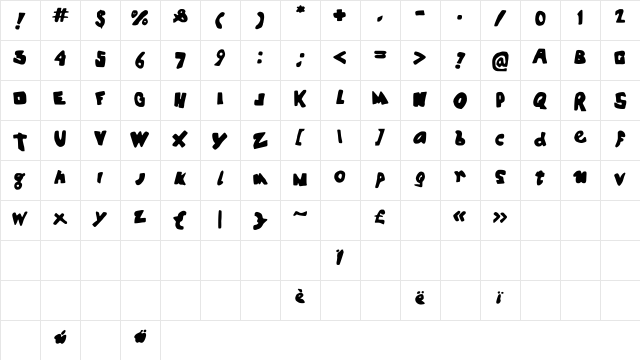
SPOOKYHOUSE_ Medium
Design Context for SPOOKYHOUSE_
SPOOKYHOUSE_ is a composed and adaptable typeface that performs quietly and consistently across a wide range of design contexts.